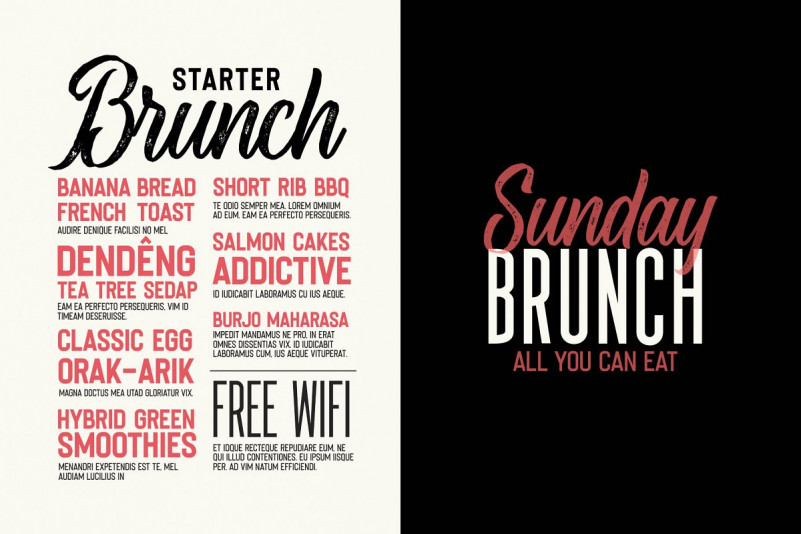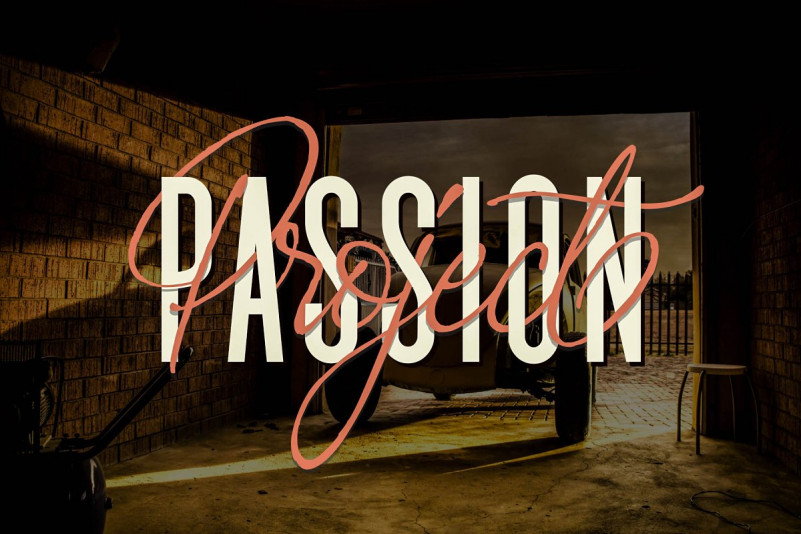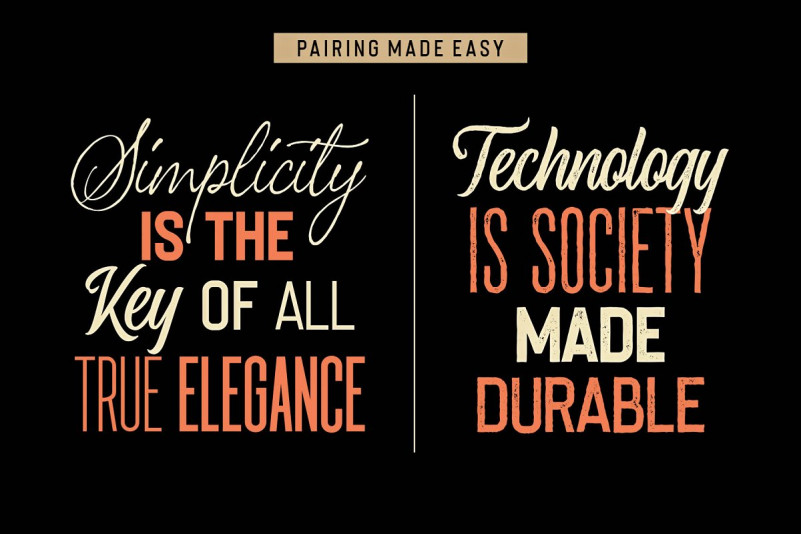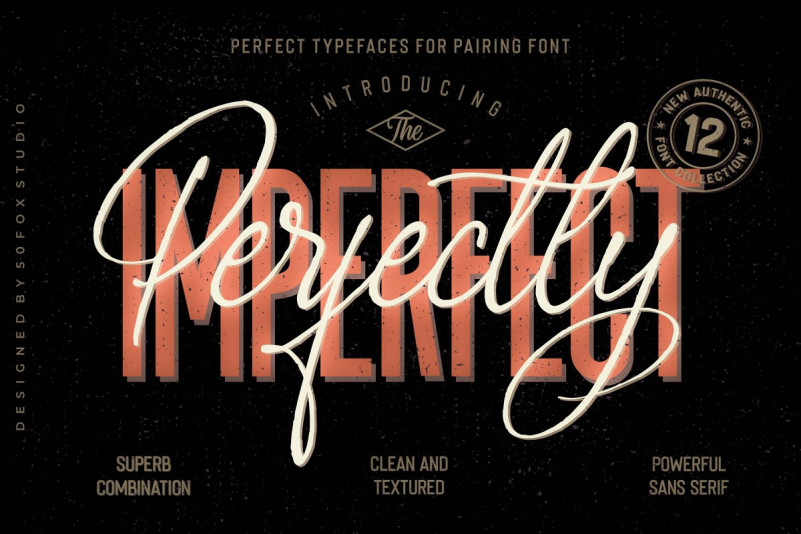
Imperfecta Sans Font
Imperfecta Sans Font – Free Demo
Introducing Perfectly Imperfect Font Collection. It is was designed by 50Fox. The Perfectly Imperfect Font Collection is Useful Pairing Combo. This handy collection makes it easy for us to pair typefaces instantly. Each font is a new font (Fresh) and is only available here. This product is good for your collection investment, saving time and money. These are perfect for Logos, Advertising, Apparel Design, Lettering, Typography, Labels, Signage, Etc.